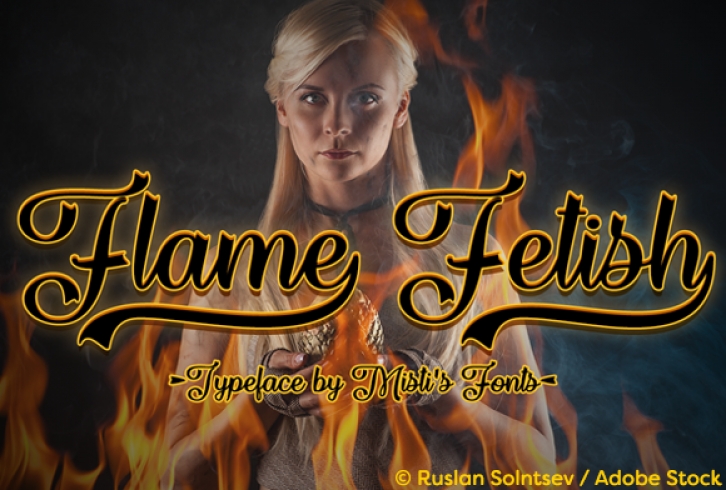
Flame Fetish is a stylish and fiery typeface that will extra spice to your projects! Perfect for logos, posters, and so much more!
It includes stylish underline swashes which you can use to make the perfect design!